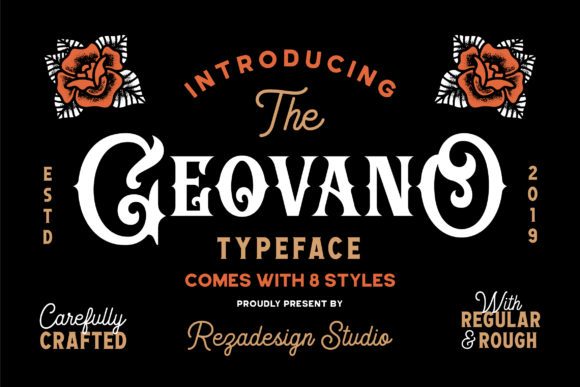
Welcome to the realm of Geovano Font, a display font with the charm of vintage nostalgia and the allure of modernity. Crafted by the skilled hands of Grezline Studio, Geovano is more than just a font; it's an artistic masterpiece that will add an enchanting touch to your creative endeavors.
With its lovely alternates, Geovano grants you the freedom to explore endless possibilities, transforming words into captivating works of art. Each letter dances upon the page, exuding a timeless elegance that is sure to make a lasting impression.
Designers and typographers, unleash your imagination with Geovano and watch as your projects take on a new life. Whether it's branding, posters, packaging, or web design, Geovano's versatility knows no bounds. Its captivating presence will leave an indelible mark on any medium, evoking emotions and igniting conversations.
Don't settle for ordinary fonts that blend into the background. Embrace the beauty and distinction of Geovano, and let your designs radiate with originality and sophistication. Its vintage charm will transport you back in time, while its contemporary flair keeps you firmly rooted in the present.
Elevate your creative projects to new heights with Geovano Font. Discover the endless possibilities that await you as you explore its captivating beauty. Dare to be different, dare to enchant, and dare to make a statement with every word you design.